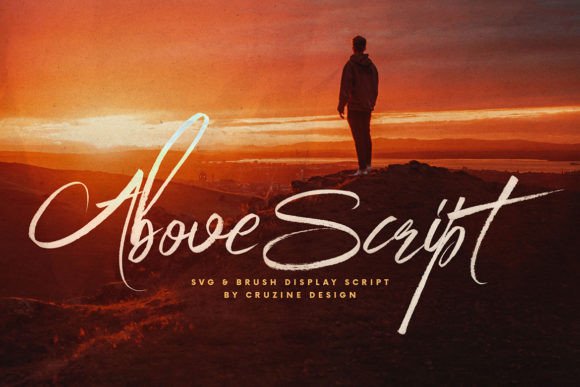
I’ll never forget the project that led me to discover the Above Font. I was working on a luxury brand’s packaging design, and my client requested a font that exuded elegance and sophistication. I scoured the internet, tried countless fonts, but nothing seemed to fit the bill. That was until I stumbled upon Above Font. Its fluid strokes and cursive letterforms immediately caught my attention, and I knew I had found the perfect fit.
A Modern Classic: What I Love About Above Font
Above Font is a modern thin brush script font that ticks all the right boxes for designers like us. Here are some of its standout features:
- ✨ Elegant and sophisticated appearance, perfect for high-end branding and packaging
- ✅ Fluid strokes and subtle variations in stroke weight for a refined look
- 🔥 Cursive letterforms that add a touch of whimsy and personality
- 💡 Highly legible, even at smaller font sizes
The Not-So-Perfect: Small Quirks and Limitations
While Above Font is an excellent choice for many design projects, it’s not without its quirks. Here are a few things to keep in mind:
- 🤔 Limited availability of stylistic alternates, which may limit its versatility in certain design contexts
- ⚠️ May not be the best choice for body text, as its elegant appearance is best suited for headlines and titles
The Story Behind Above Font
Above Font was designed with the goal of creating a modern and elegant script font that would meet the needs of designers and crafters. Its creator drew inspiration from classic script fonts, but with a fresh and contemporary twist. The result is a font that’s both refined and approachable.
| What is Above Font best suited for? | Above Font is best suited for high-end branding, packaging, and editorial design that demands a contemporary and refined aesthetic. |
| Is Above Font suitable for body text? | No, Above Font is best used for headlines and titles. Its elegant appearance may not be suitable for body text. |